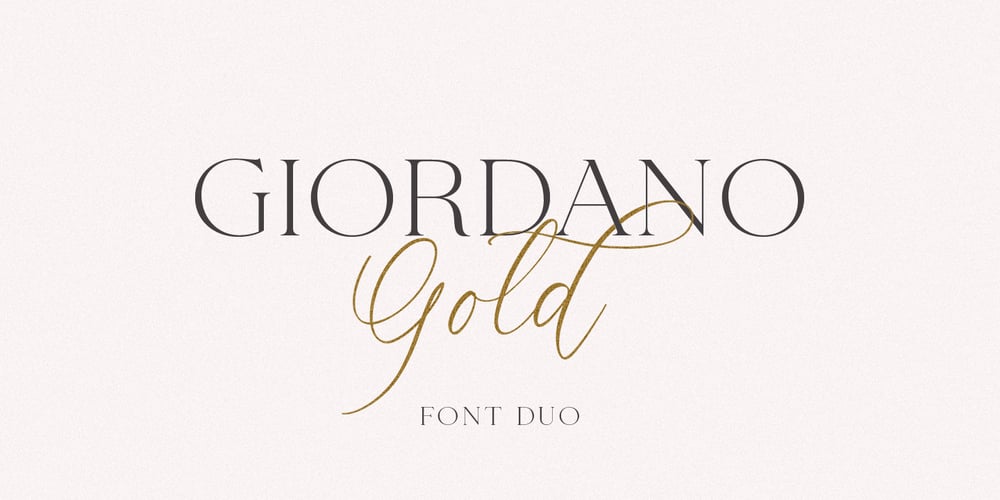
Giordano Gold
Giordano Gold font
Giordano Gold Font Family was designed by Pavel Larin and published by Larin Type Co. Giordano Gold contains 2 styles and family package options. Giordano Gold this is a beautiful font duo that includes: script and serif font. Capital Serif is sophisticated and elegant, perfect for headlines, logos, branding, short display texts. The fine brush script includes many alternatives that make it more expressive and playful, also included in the script are love letters that will perfectly complement wedding invitations, decorations holidays and much more.These fonts are harmoniously combined with each other and perfectly complement each other, easy to use and has OpenType features.